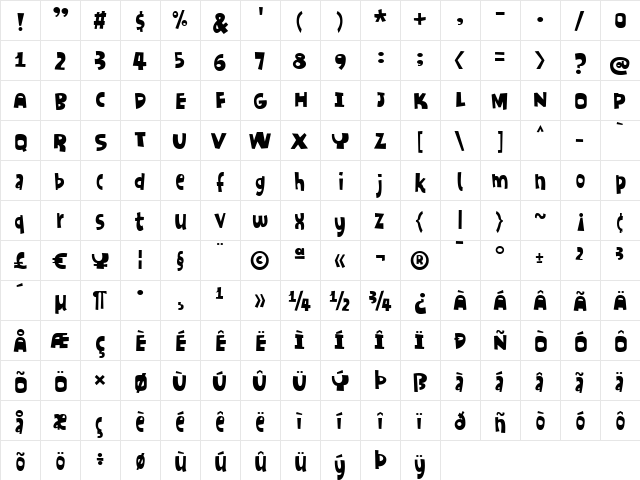
Empty Head Regular
Design Context for Empty Head Typeface
Empty Head is a composed and adaptable typeface that performs quietly and consistently across a wide range of design contexts.